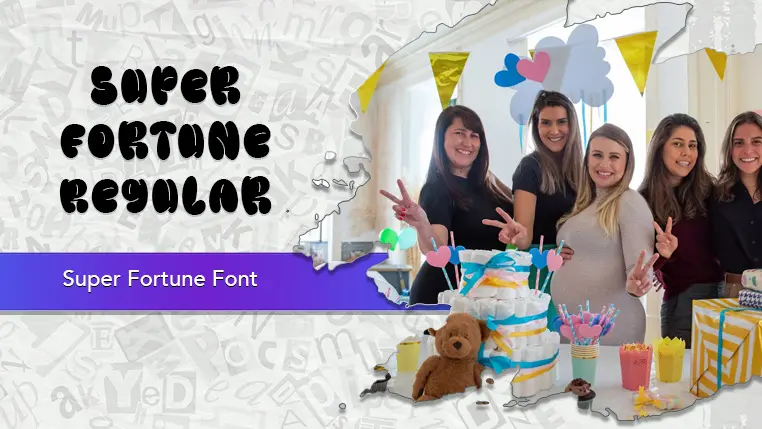
The Super Fortune font family may be ideal for you if you enjoy working on an artistic design project. The lively, expressive look of this typeface, which was created by Khurasan, makes it ideal for Wedding invitations, save-the-dates, and thank-you cards, Anniversary, formal party, or baby shower invitations, Personalized stationery, monograms, and envelopes, Luxury product packaging (e.g., cosmetics, perfumes, gourmet food, wine labels). Boutique businesses (e.g., florists, jewelry stores, high-end bakeries), Photographers, event planners, fashion designers, or artists. Magazine titles, covers, or pull quotes in fashion, bridal, or lifestyle publications. Quotes or poetic lines in graphic design. and other light-hearted visual projects.
Regular are the one primary font styles of the Super Fortune font family. You may build dynamic, visually appealing text layouts with the distinct flair that each style offers. With crisp, readable lines and a relaxed tone.